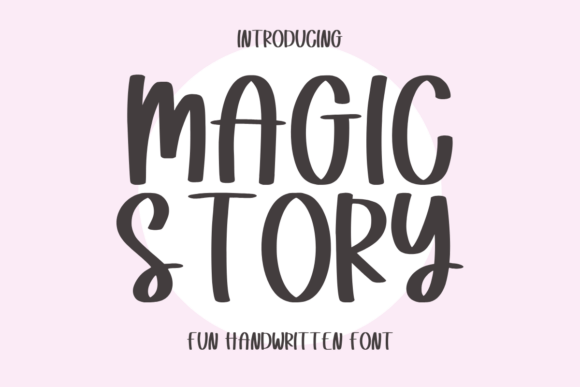
Introducing Magic Story Font: The Perfect Companion for Crafters, Designers, and Makers
Are you a crafter, designer, or maker looking for a font that can add a touch of whimsy and fun to your projects? Look no further than Magic Story Font, a delightful handwritten font that’s perfect for a wide range of creative endeavors. In this article, we’ll explore the features and benefits of Magic Story Font, and show you how it can elevate your crafts, planners, KDP, stickers, greeting cards, and more.
What is Magic Story Font?
Magic Story Font is a fun and playful handwritten font that’s designed to bring a smile to your face. Its cute and friendly style makes it perfect for projects that require a personal touch, such as crafts, planners, and DIY projects. The font is highly versatile and can be used for a wide range of applications, from digital designs to print materials.
Features of Magic Story Font
- Handwritten style: Magic Story Font has a beautiful, handwritten style that’s perfect for adding a personal touch to your projects.
- Cute and friendly: The font’s cute and friendly style makes it perfect for projects that require a playful touch.
- Highly versatile: Magic Story Font can be used for a wide range of applications, from digital designs to print materials.
- Perfect for Cricut: The font is optimized for use with Cricut machines, making it easy to cut out letters and shapes for your projects.
- Great for sublimation: Magic Story Font works beautifully with sublimation printing, allowing you to create vibrant and colorful designs.
Uses for Magic Story Font
Magic Story Font is perfect for a wide range of creative projects, including:
- Crafts: Use Magic Story Font to add a personal touch to your crafts, such as scrapbooking, card making, and DIY projects.
- Planners: Add a playful touch to your planners and journals with Magic Story Font.
- KDP: Use Magic Story Font to create eye-catching titles and headings for your Kindle Direct Publishing (KDP) books.
- Stickers: Create fun and colorful stickers with Magic Story Font.
- Greeting cards: Use Magic Story Font to create personalized greeting cards for special occasions.
Benefits of Using Magic Story Font
There are many benefits to using Magic Story Font in your creative projects. Here are just a few:
- Adds a personal touch: Magic Story Font’s handwritten style adds a personal touch to your projects, making them more special and unique.
- Increases creativity: The font’s playful style can help inspire creativity and add a fun touch to your projects.
- High-quality design: The font is designed to high standards, ensuring that your projects look professional and polished.
Tips for Using Magic Story Font
Here are a few tips for getting the most out of Magic Story Font:
- Experiment with different colors: Magic Story Font works beautifully with a wide range of colors, so don’t be afraid to experiment and find the perfect color scheme for your project.
- Use it with other fonts: Magic Story Font pairs well with other fonts, so try combining it with other fonts to create a unique and interesting look.
- Pay attention to spacing: Make sure to pay attention to the spacing between letters and words to ensure that your text is easy to read.
- Have fun: Most importantly, have fun with Magic Story Font! The font is designed to be playful and fun, so don’t be afraid to let your creativity shine.
Magic Story Font is a fun and playful handwritten font that’s perfect for crafters, designers, and makers. Its cute and friendly style makes it perfect for a wide range of creative projects, from crafts and planners to KDP and stickers. With its highly versatile design and easy-to-use format, Magic Story Font is sure to become a favorite in your creative toolkit.